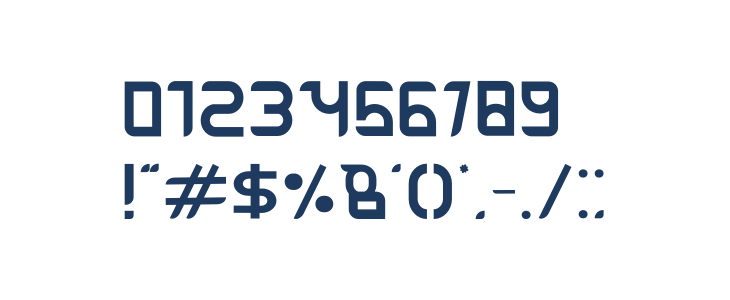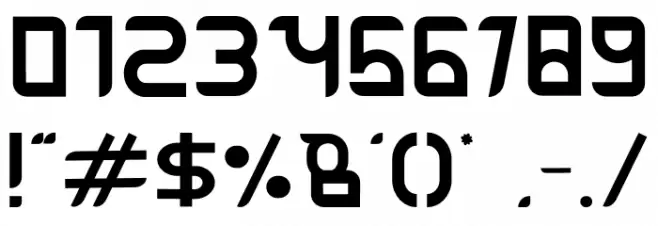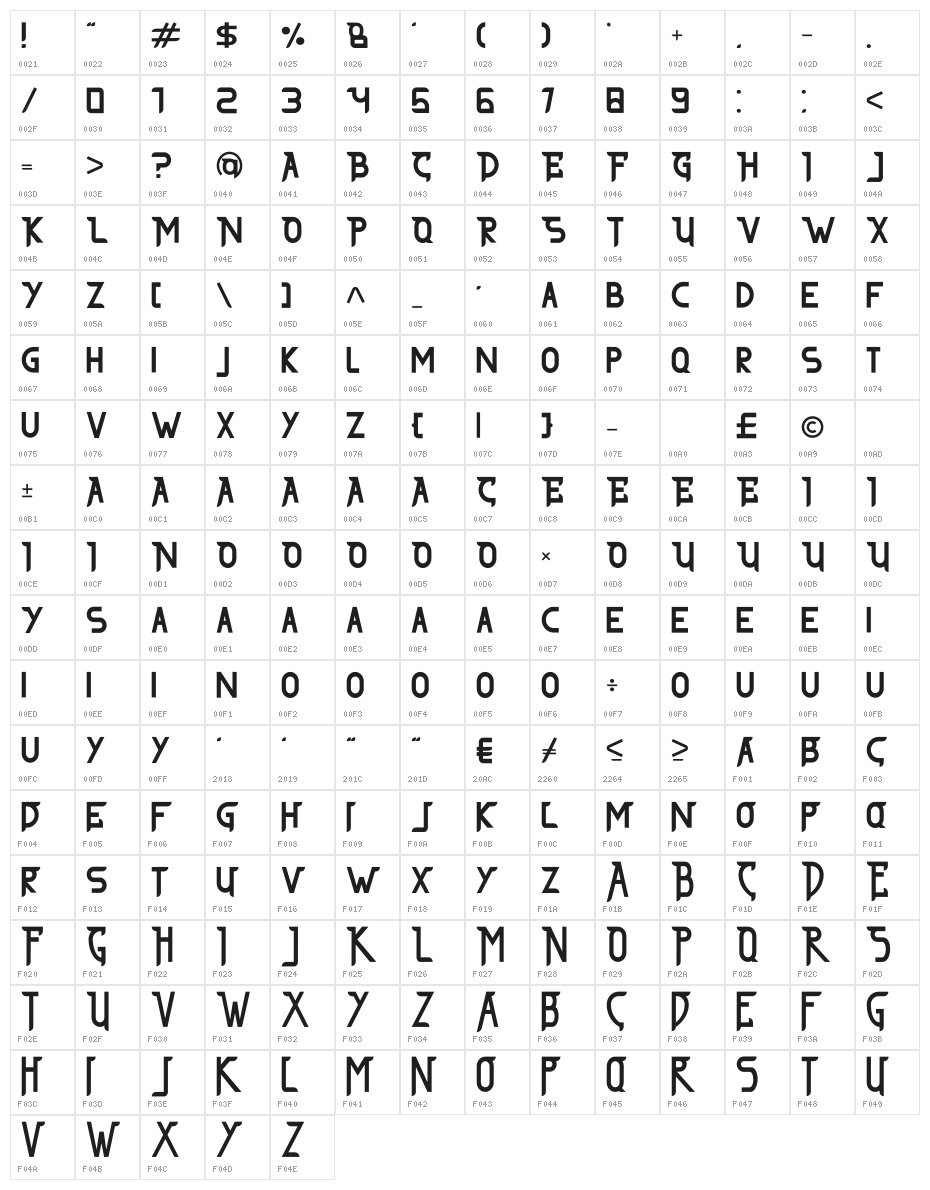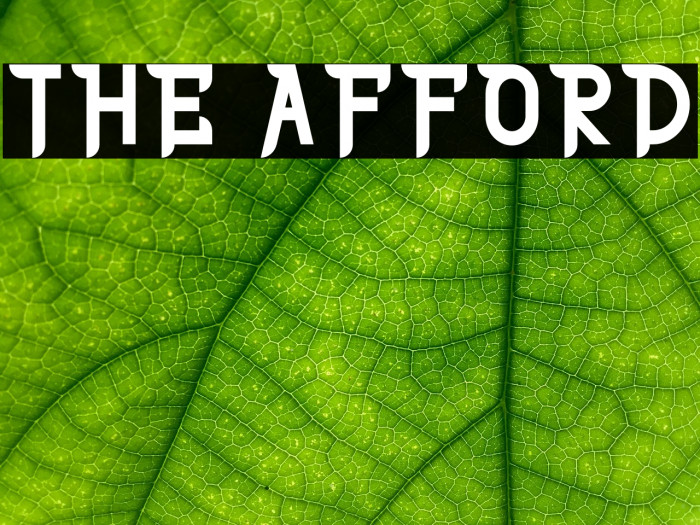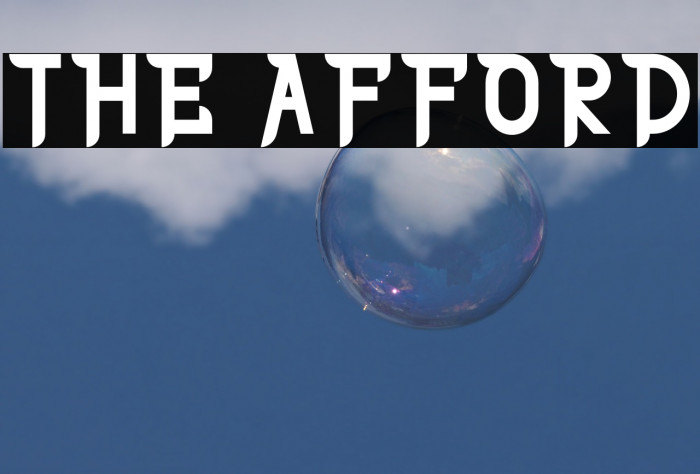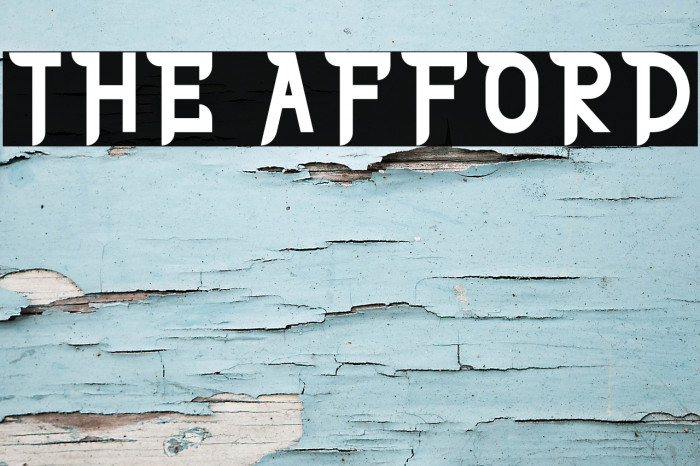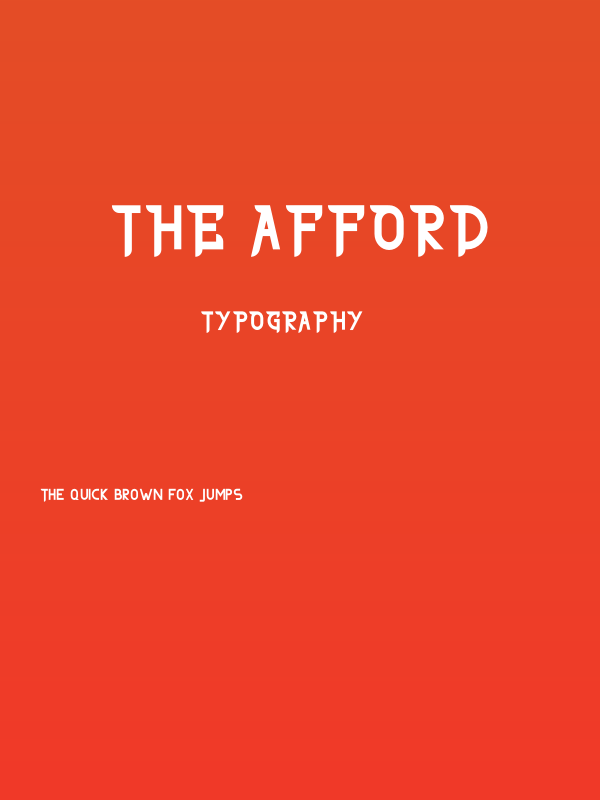
THE AFFORD Font
THE AFFORD Description
This font features a bold and geometric design with a futuristic flair. The characters are constructed with sharp angles and clean lines, giving it a modern and edgy appearance. The uppercase letters are particularly striking, with unique cutouts and asymmetrical elements that add visual interest. The numerals and special characters maintain the same bold and angular style, ensuring consistency across all glyphs. This font's distinct style makes it suitable for attention-grabbing headlines and designs that require a strong visual impact.
| Proposed Projects | Ideal for sci-fi themed projects, modern branding, posters, and digital artwork. |